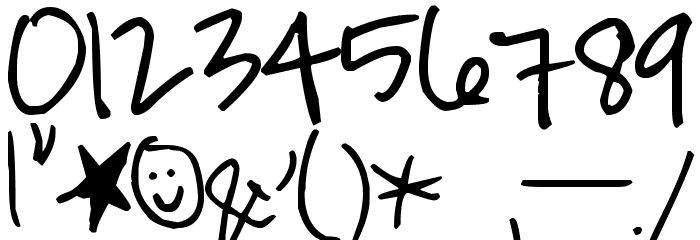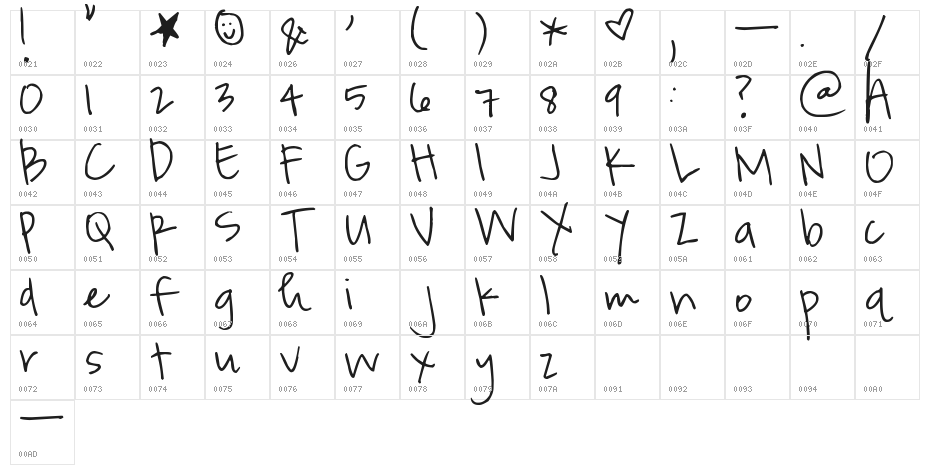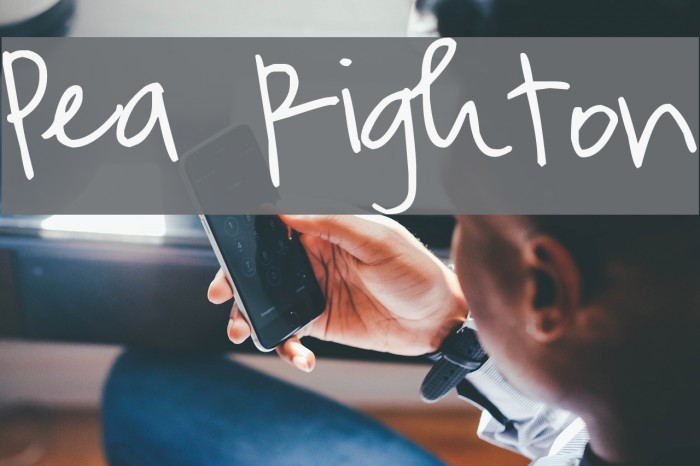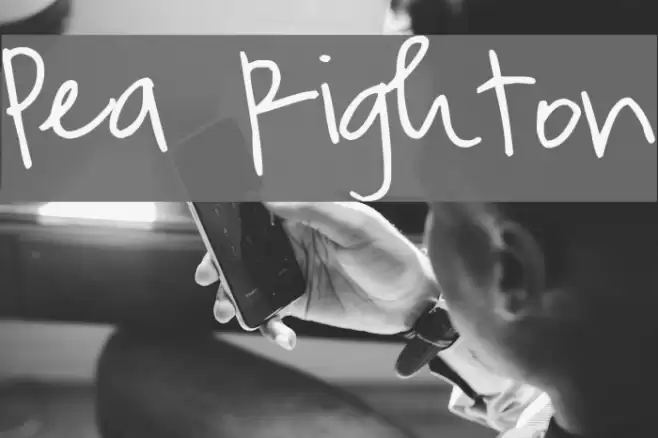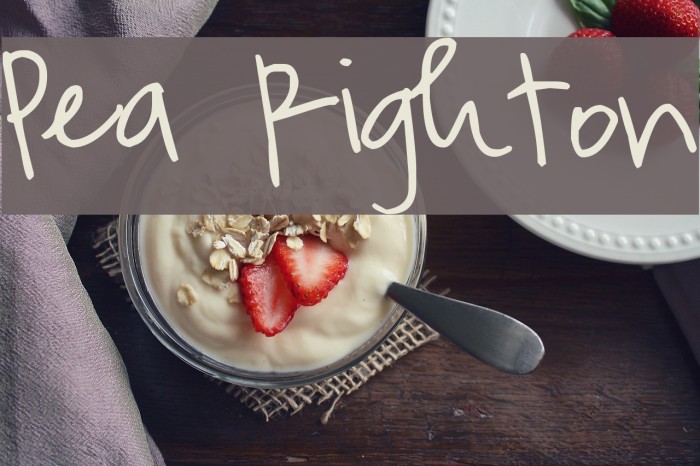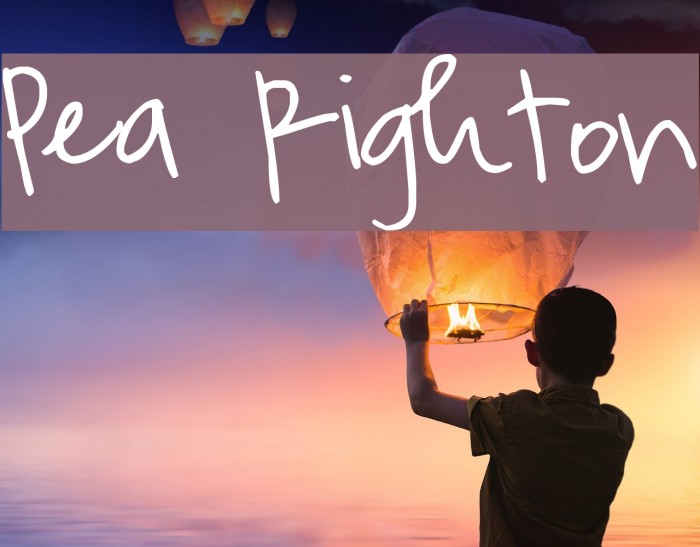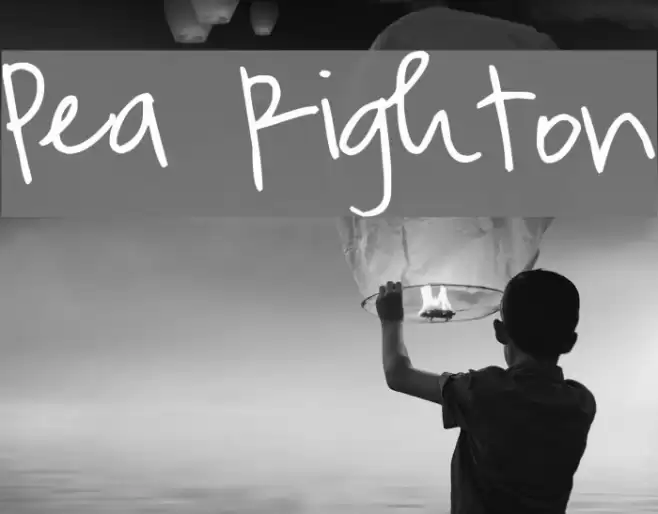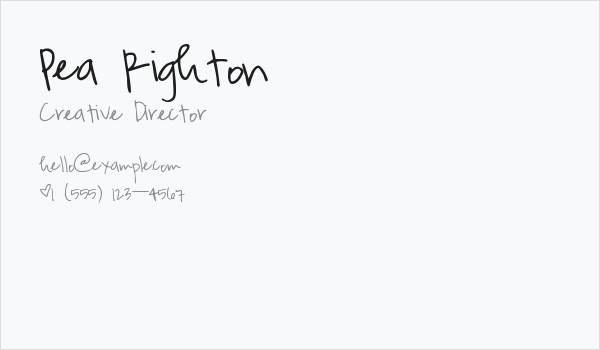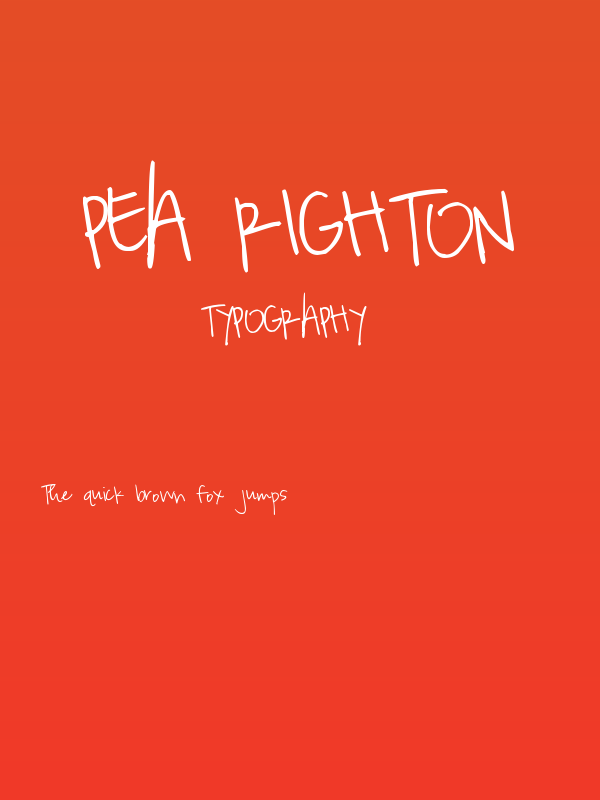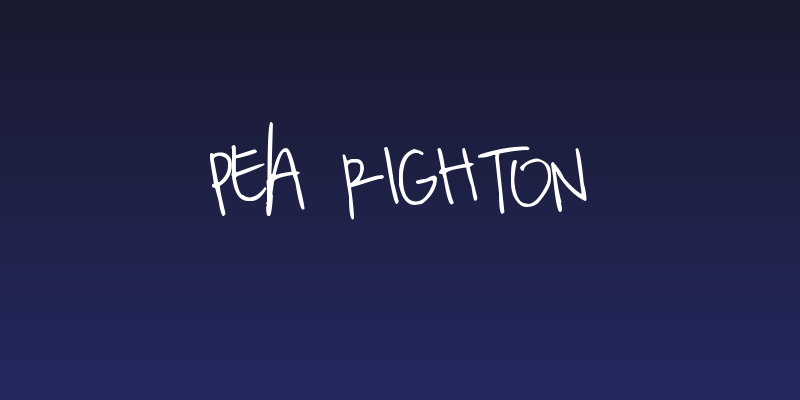
Pea Righton Font
Pea Righton Description
This font exudes a playful and casual handwritten style, characterized by its uneven strokes and informal appearance. The letters are slightly slanted, giving it a dynamic and lively feel. The uppercase and lowercase characters maintain a consistent flow, while the numbers and special characters add to its quirky charm. The font's irregularity and personal touch make it ideal for projects that require a human element or a touch of whimsy.
| Use Case | Headlines, Informal text, Personal projects |
| Proposed Projects | Ideal for greeting cards, personal blogs, children's books, and informal branding. |